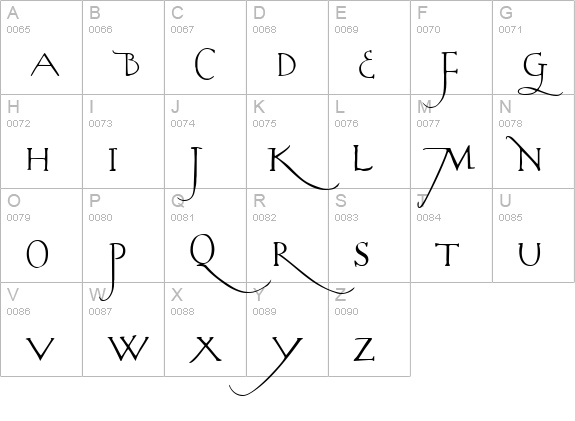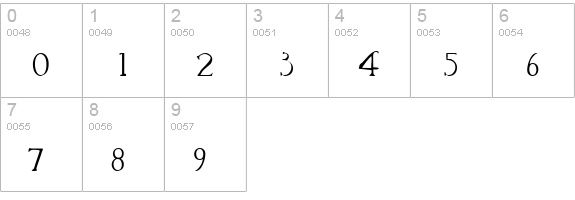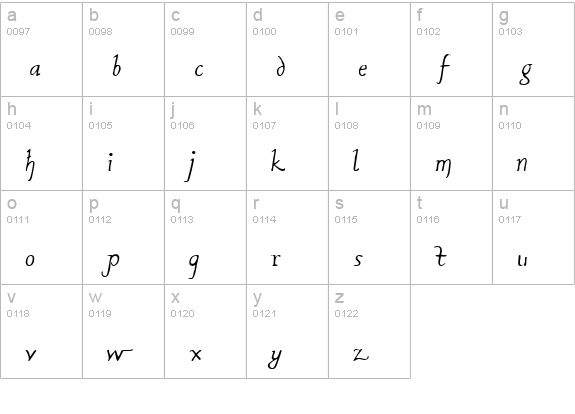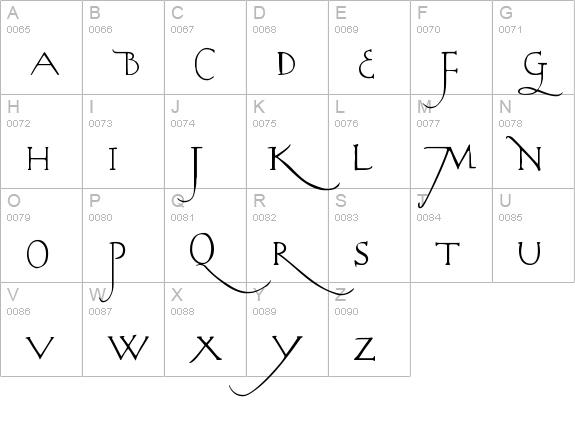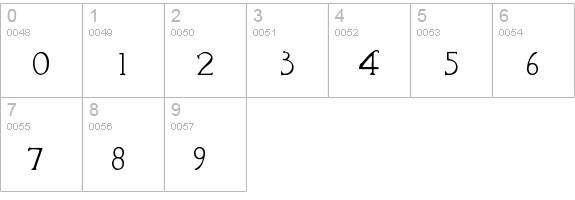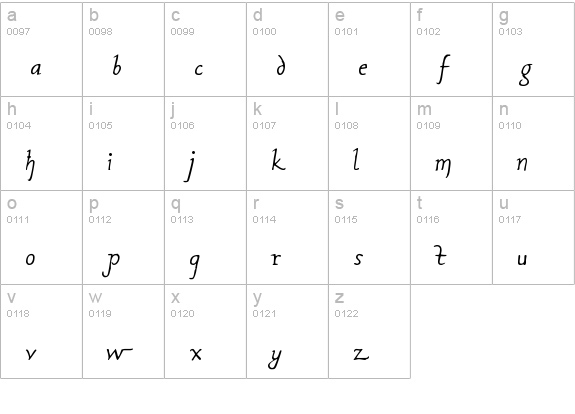
Rodolphe Tryout font is a stunning and elegant typeface that exudes sophistication and charm. Its classic yet modern design makes it perfect for a wide range of projects, from branding to editorial design. The font features delicate serifs and clean lines that give it a timeless appeal. With its versatility and readability, Rodolphe Tryout font is sure to make your designs stand out. The best part? Rodolphe Tryout font is available for free download at FontsMarket.com. This means you can easily access this beautiful typeface and use it in your projects without any cost. Don't miss out on the opportunity to enhance your designs with the exquisite Rodolphe Tryout font - download it now and elevate your typography game!